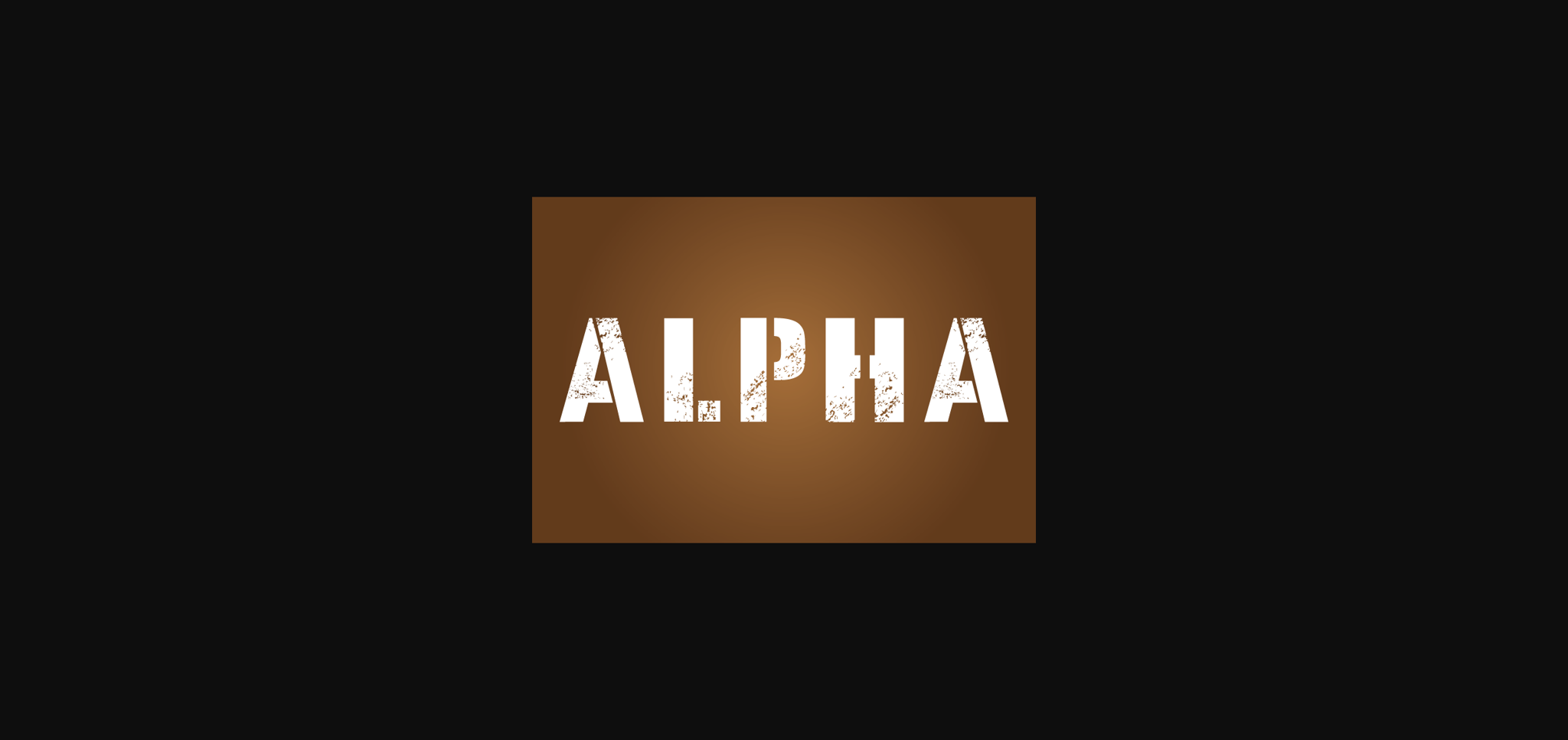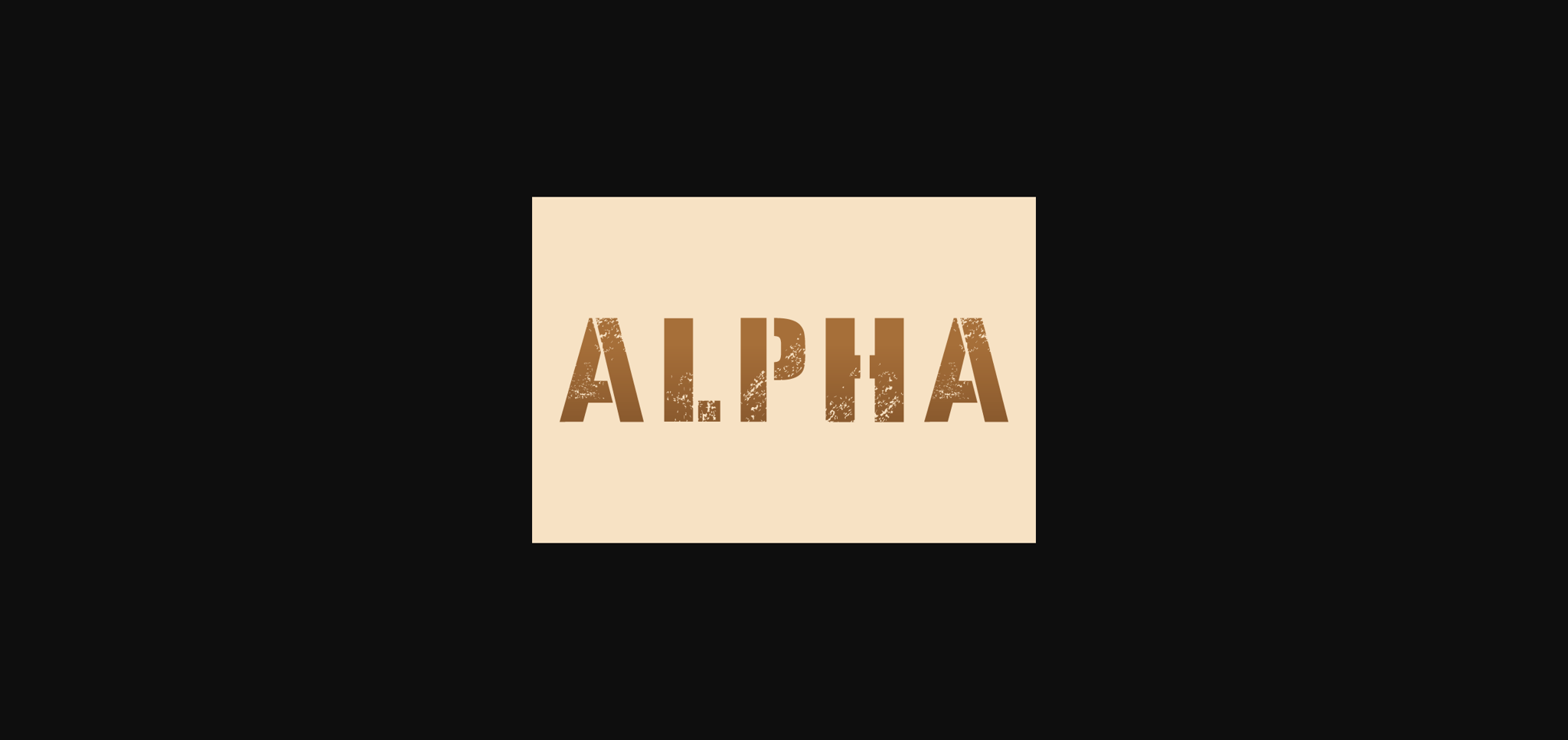
Alpha Font
About Alpha Font
Alpha is a real statement-maker, with its edgy and raw design. Alpha rough lines and distressed texture create a sense of grit and rebellion, making it perfect for anything that demands a touch of boldness and individuality, from posters and album covers to streetwear branding.